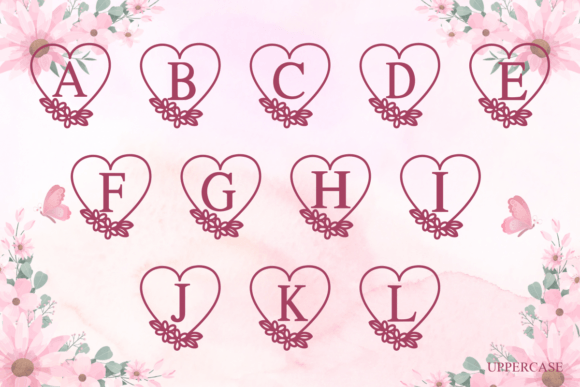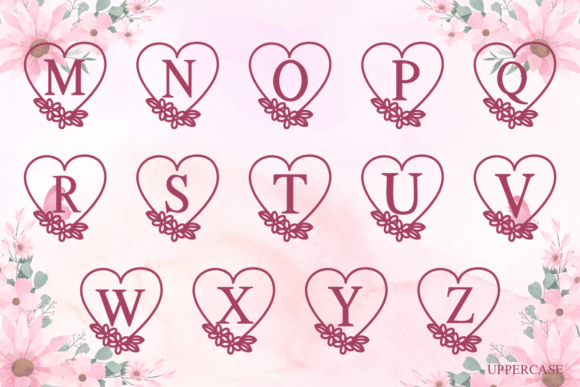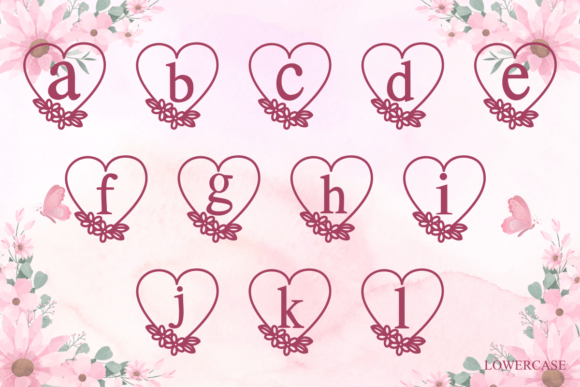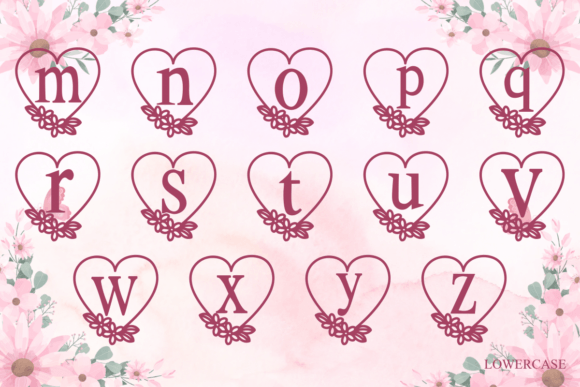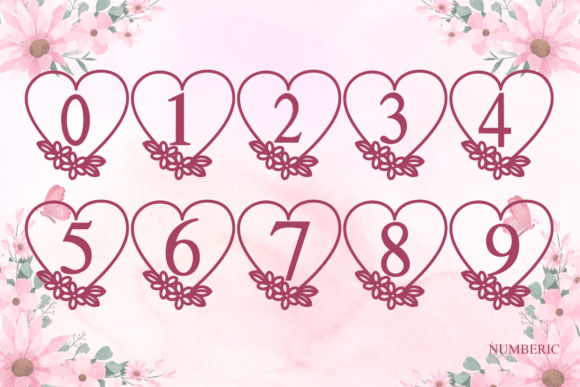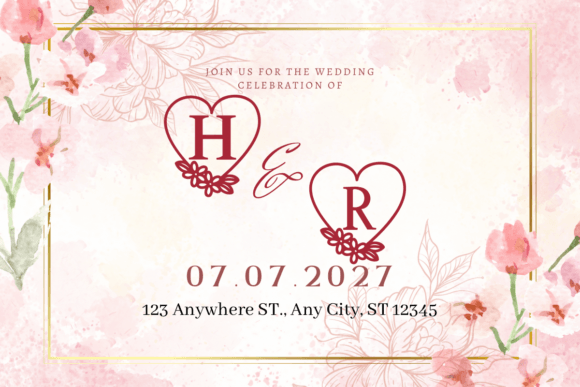
The Blooming Beauty of Flower Heart Font
I’ll never forget the time I was working on a project for a client who wanted a whimsical and romantic touch. I had spent hours browsing through font libraries, but nothing seemed quite right. That was until I stumbled upon Flower Heart Font. It was like a breath of fresh air – the perfect blend of organic and decorative elements that instantly elevated my design. In this article, I’ll share my experience with Flower Heart Font, its features, and how to make the most of it in your designs.
- ✨ Unique Ornaments: Flower Heart Font comes with a wide range of lovely ornaments that can add a touch of elegance to any design.
- ✅ Highly Versatile: Whether you’re working on a wedding invitation, a brand identity, or a social media graphic, this font can adapt to any topic or style.
- 💕 Emotional Connection: The font’s whimsical and romantic feel can evoke emotions and create a connection with your audience.
While Flower Heart Font is an amazing addition to any font library, there are a few things to keep in mind:
- 🤔 Legibility at Small Sizes: Like many decorative fonts, Flower Heart may not be the best choice for body text or small font sizes. It’s best used for headlines or titles.
- ⚠️ Glyph Overload: With so many ornaments and glyphs to choose from, it’s easy to get overwhelmed. Take some time to explore the font and plan your design carefully.
The Designer Inspiration Behind Flower Heart Font
Flower Heart Font was designed with love and care by a talented typographer who wanted to create a font that would evoke emotions and add a touch of whimsy to any design. The designer’s inspiration came from nature, art, and the beauty of the human experience. The result is a font that’s both elegant and playful, perfect for designers who want to add a touch of romance to their work.
Q: What type of designs is Flower Heart Font best suited for?
A: Flower Heart Font is perfect for designs that require a touch of elegance, romance, and whimsy, such as wedding invitations, social media graphics, and branding materials.